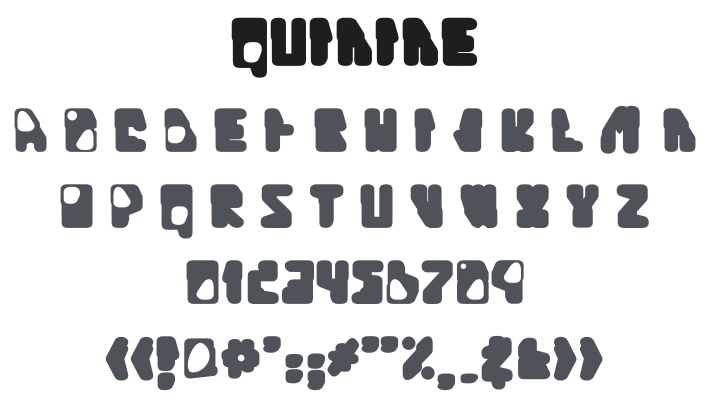
Quinine Font
About Quinine
Quinine is a massively heavy, ultra-bold display typeface where chunky, rounded letterforms are packed so tightly together they bulge and squish against each other — like inflated rubber blocks crammed into a row. The counters are tiny, barely surviving the crushing weight. Its dense, groovy heaviness has an unmistakable 1970s psychedelic boldness. Perfect for rock posters, retro branding, funky headlines, and any design needing maximum visual mass.